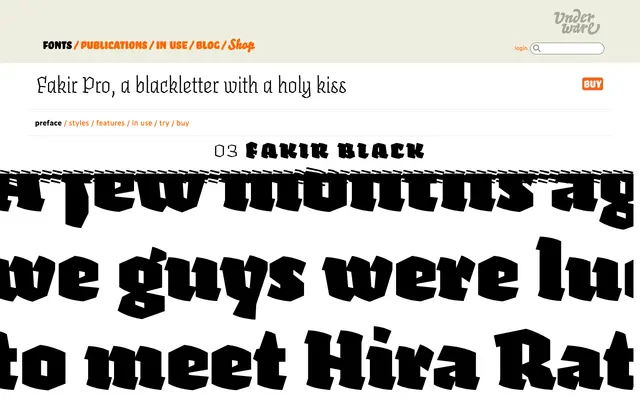
A typeface from Underware with insufficient page data to characterise in detail.
The page content returned for Fakir contained only navigation and contact information, leaving the typeface's design, weights and features undocumented here. Underware are a respected foundry with a strong tradition of expressive, humanist type design, suggesting Fakir is likely a considered text or display face. A visit to the full product page is recommended for accurate details.
Underware are known for drawing typefaces with humanist warmth and calligraphic influence; without further page content, the classification is inferred from Underware's broader typographic output and the name's associations with handcrafted, expressive letterforms.